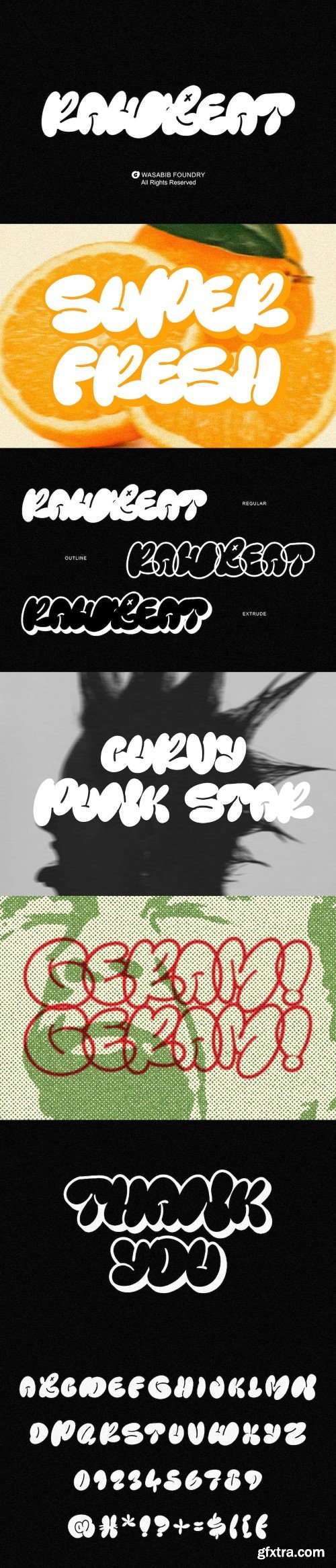
WTF Rawbeat字体
RAWBEAT is a Display Font with graffiti style, this font coming with 3 style : Regular, Outline, and Extrude. this font will make your designs or branding stand out and eye catching. 100% hand drawing to get the artistic look and make it more powerfull.